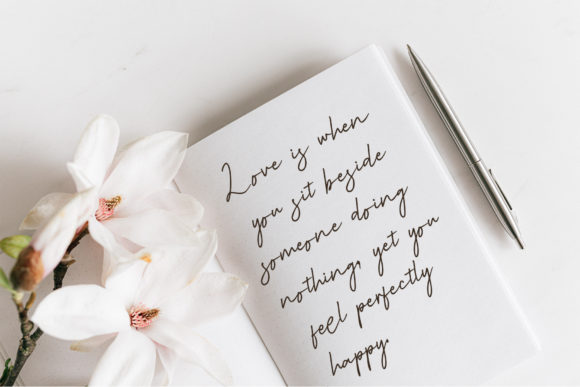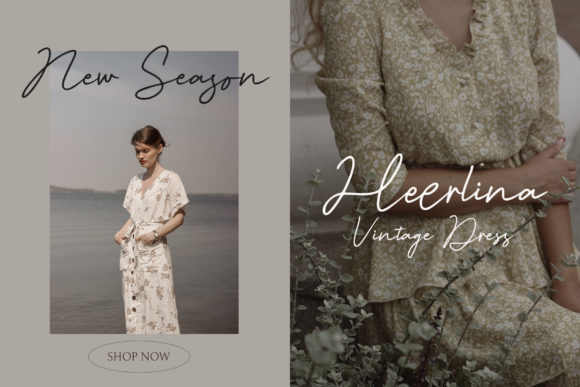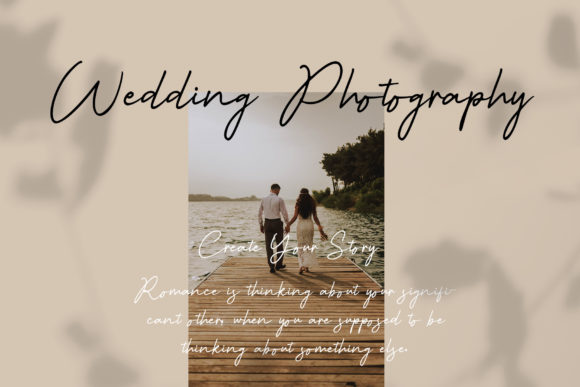
Introduction to Mosteen Font
Mosteen is a thin, luxurious and delicate script font.
Its sweet and full of life style makes this font a wonderful choice for brightening up your designs .